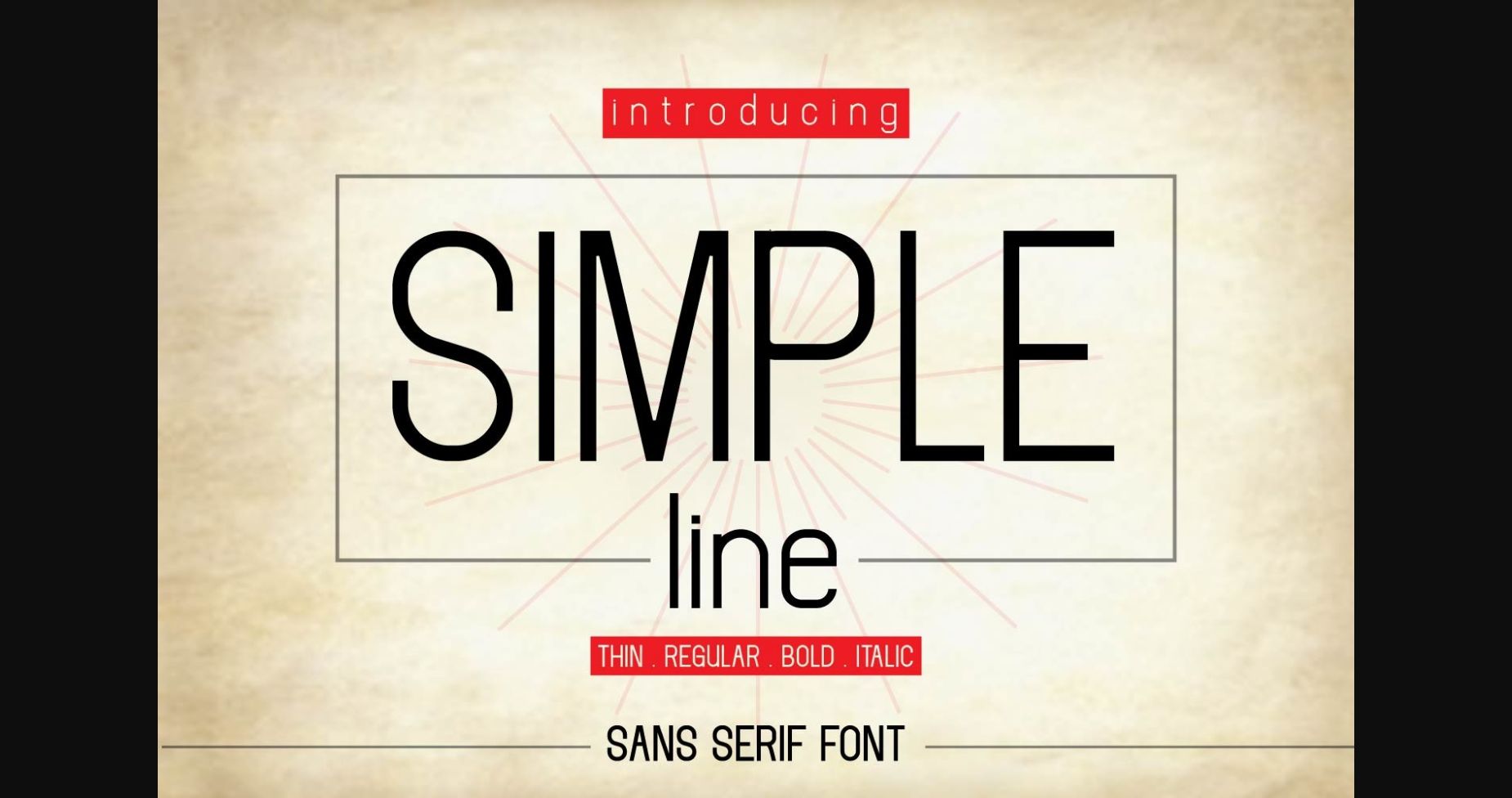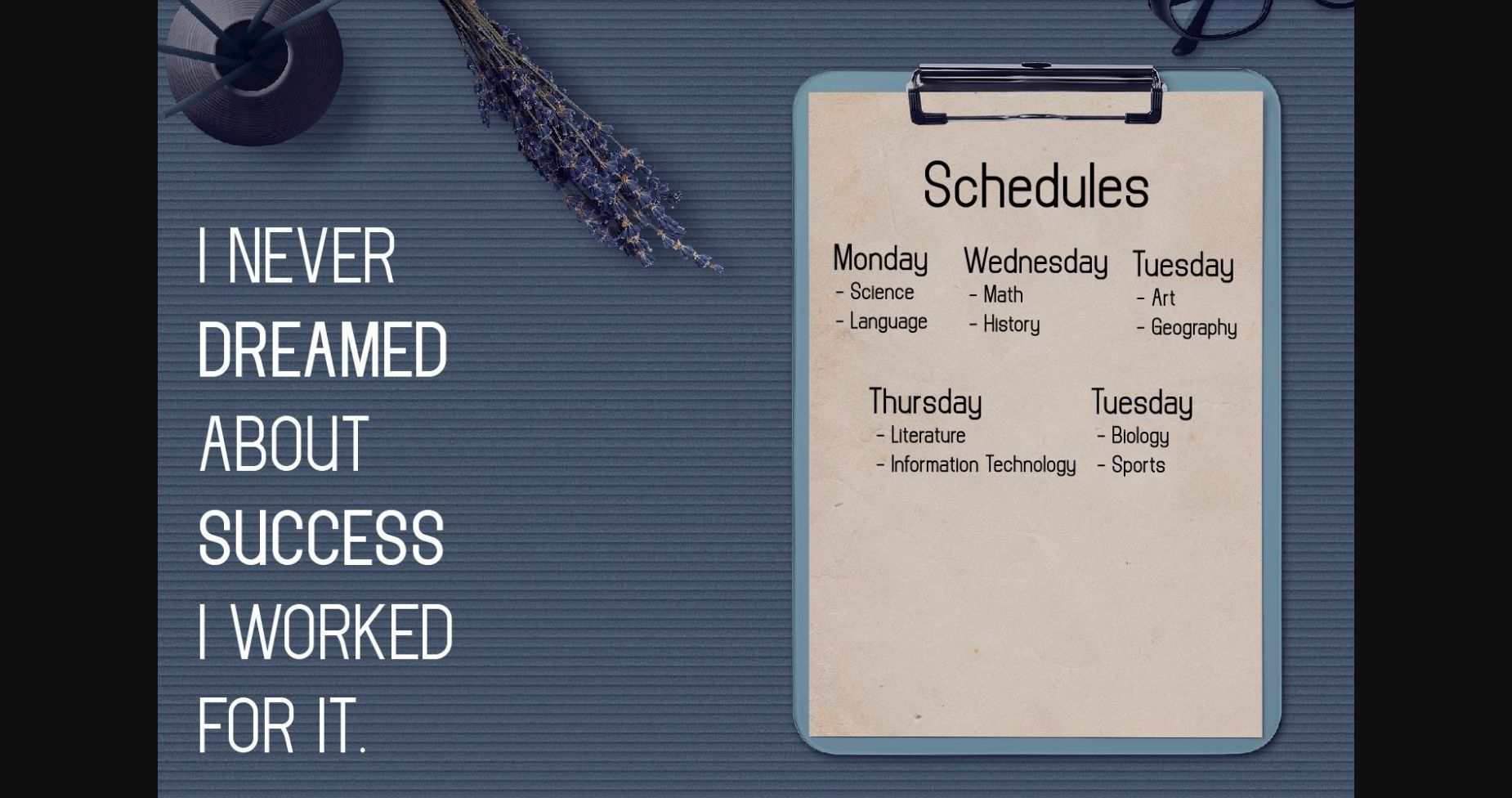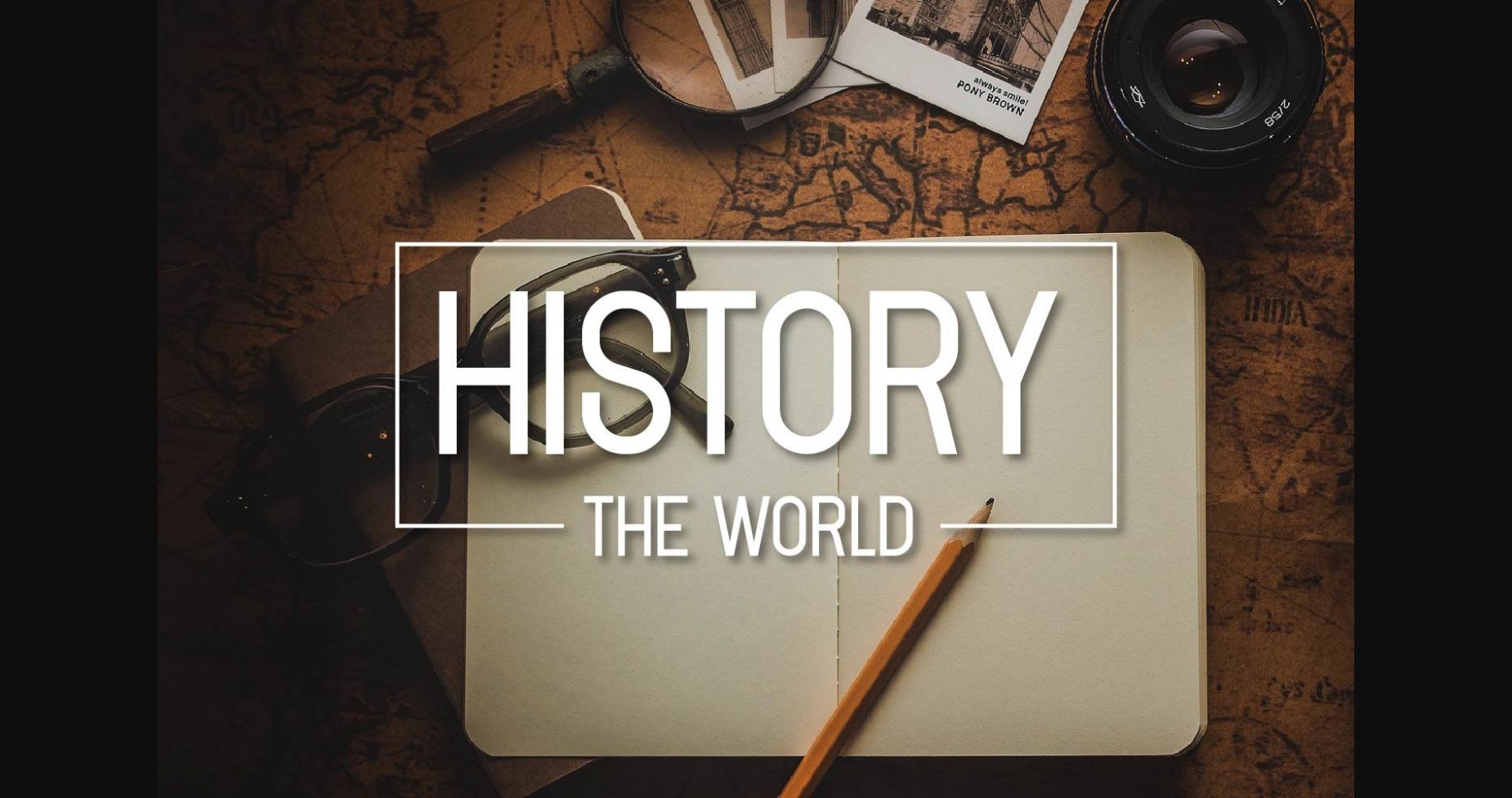
About Simple Line Font
The Simple Line Sans Serif Family Font is a new font designed with balance and versatility in mind. This font will be an incredible asset to your fonts’ library, as it has the potential to elevate any creation.
Perfect for displays, headers, invitations, save the date, weddings, branding, graphic design, and more.
Simple Line will be a fun staple in your font library!
Perfect for displays, headers, invitations, save the date, weddings, branding, graphic design, and more.
Simple Line will be a fun staple in your font library!